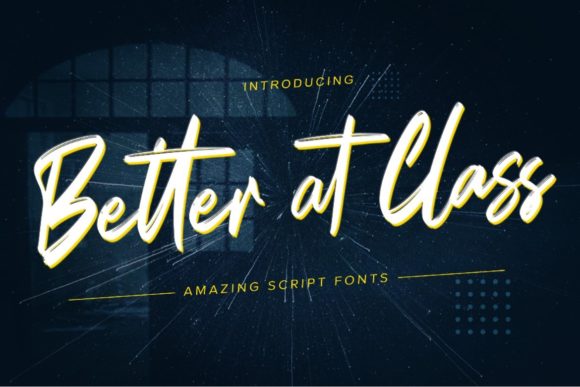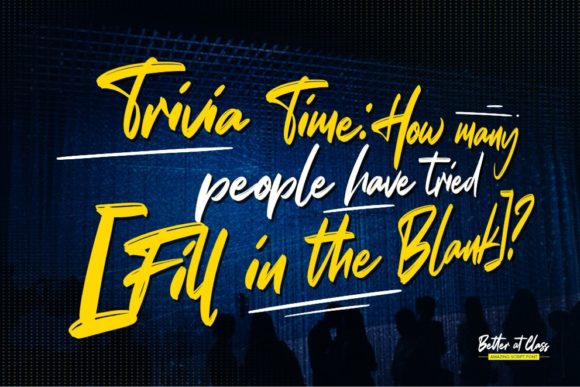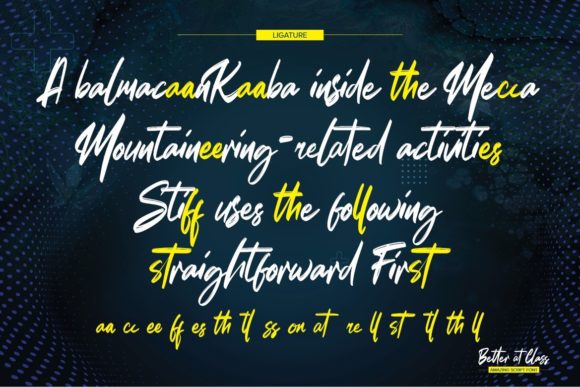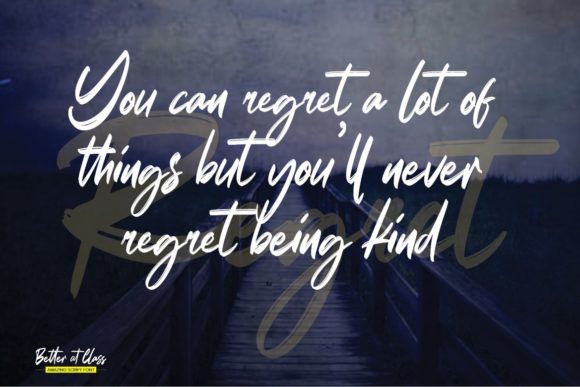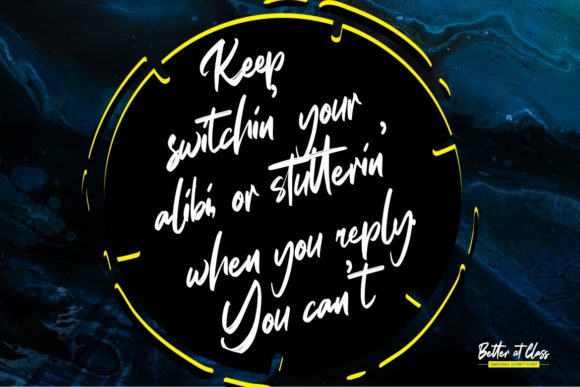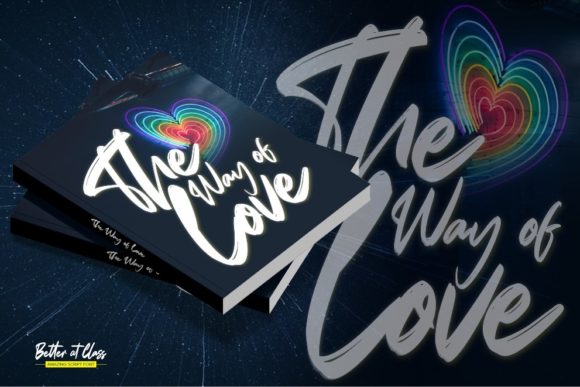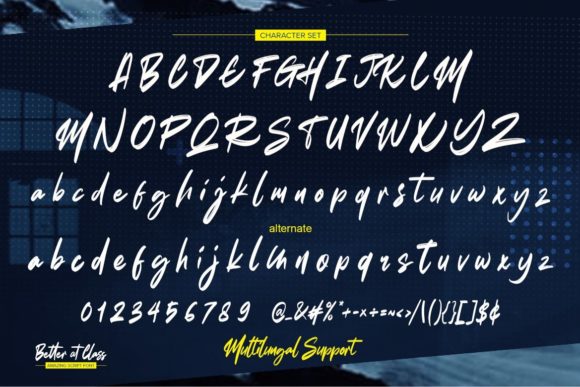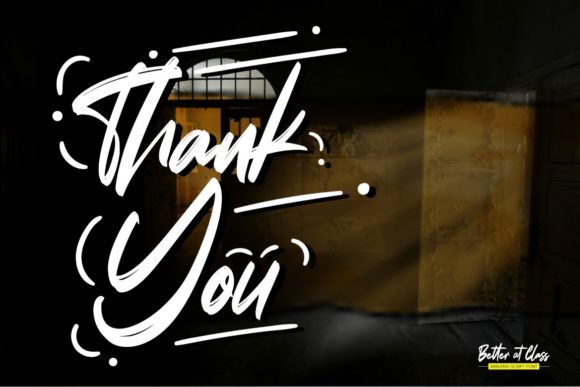
Better at Class Font
About Better at Class Font
Better at Class is a cool and neat paint brushed handwritten font. It will add a luxury spark to any design project that you wish to create! This font is PUA encoded which means you can access all of the amazing glyphs and ligatures with ease!